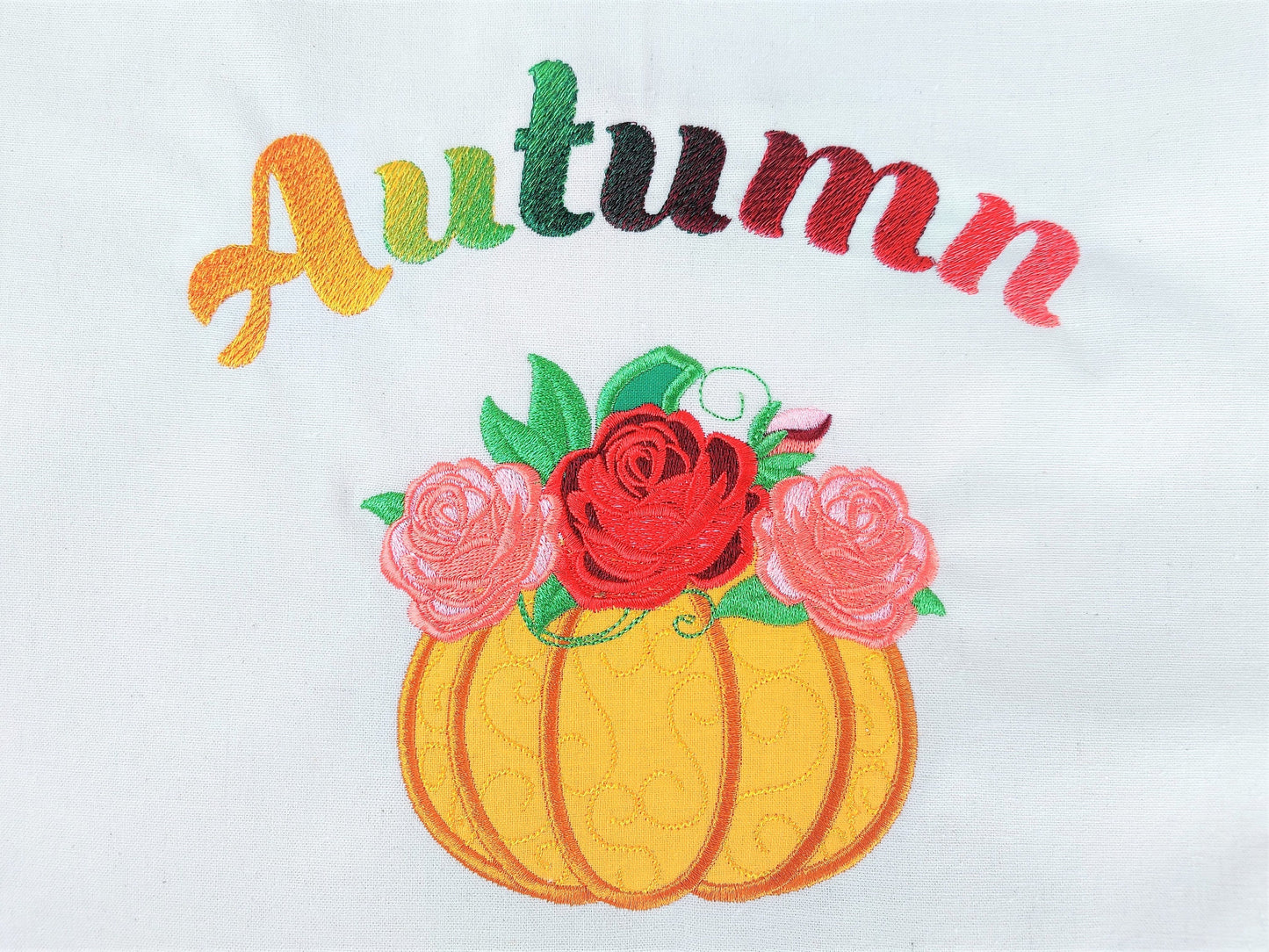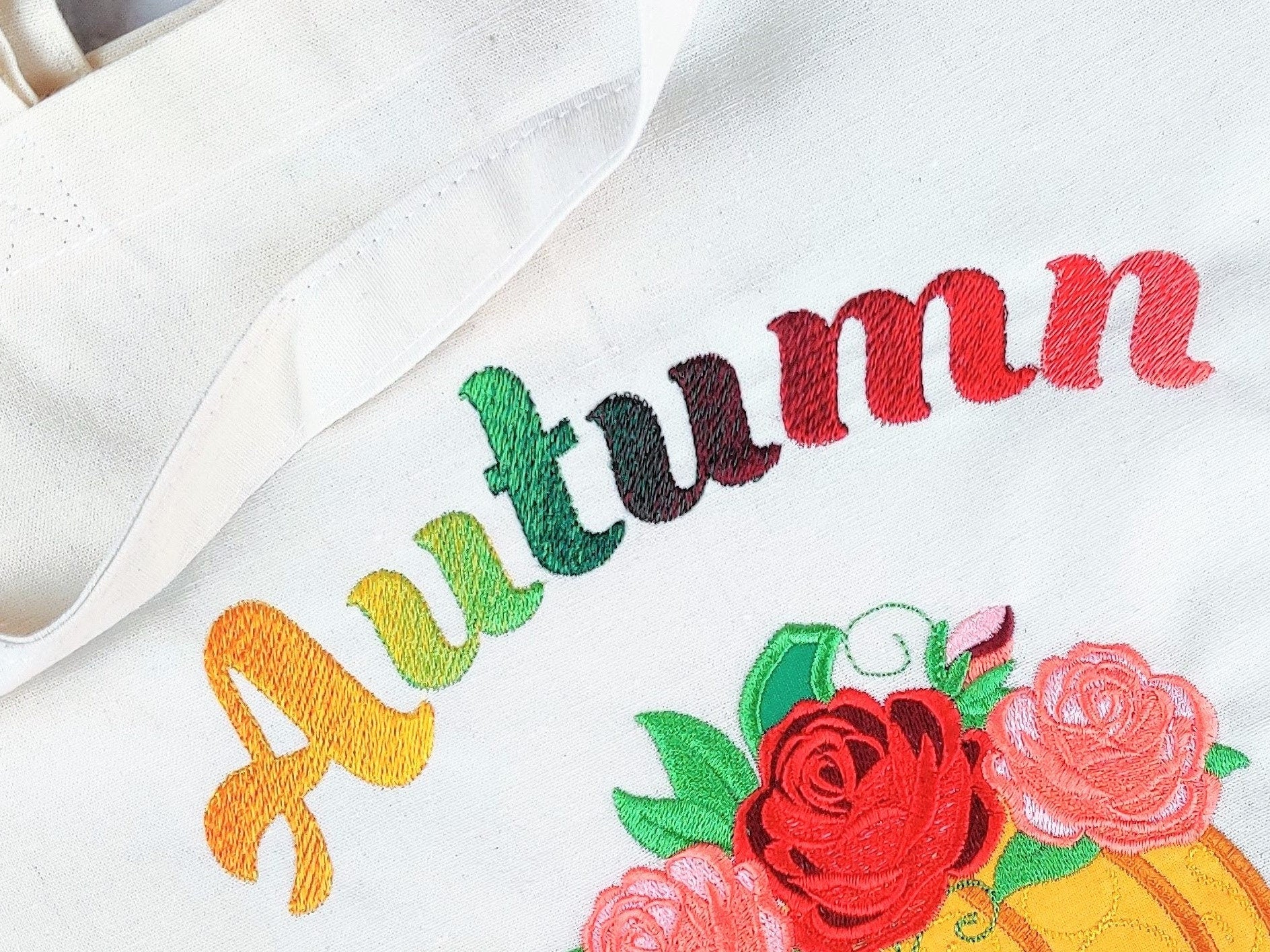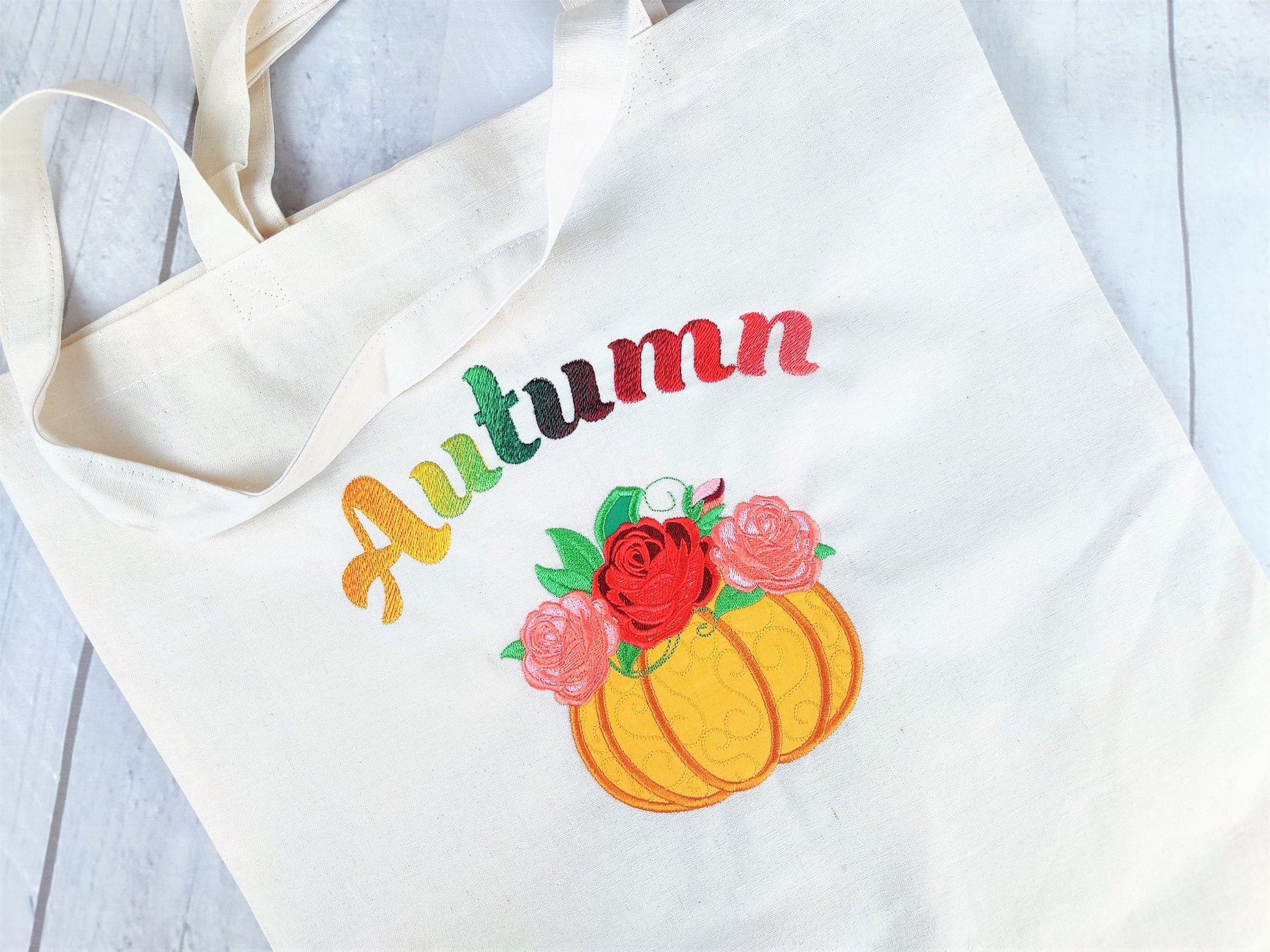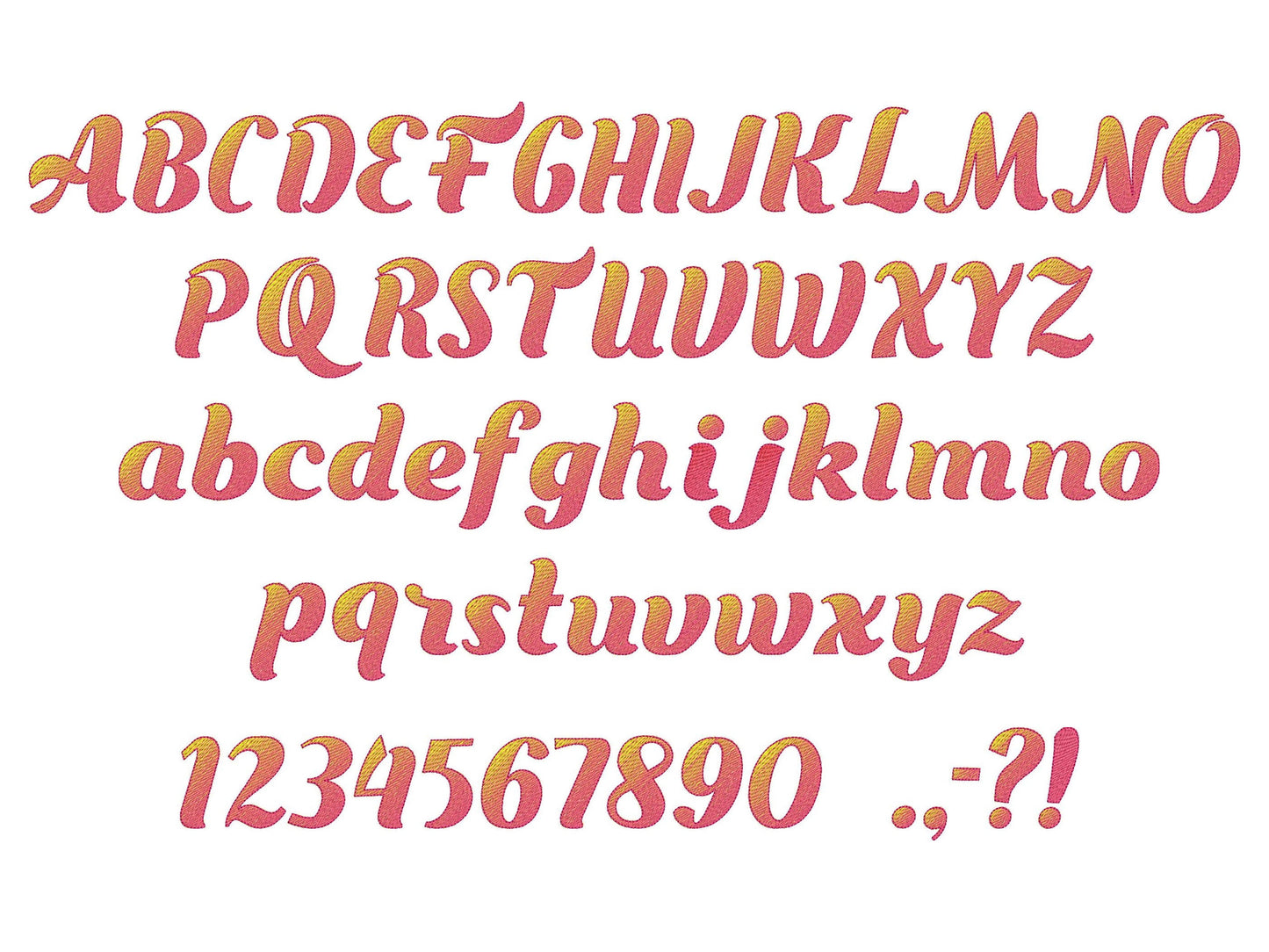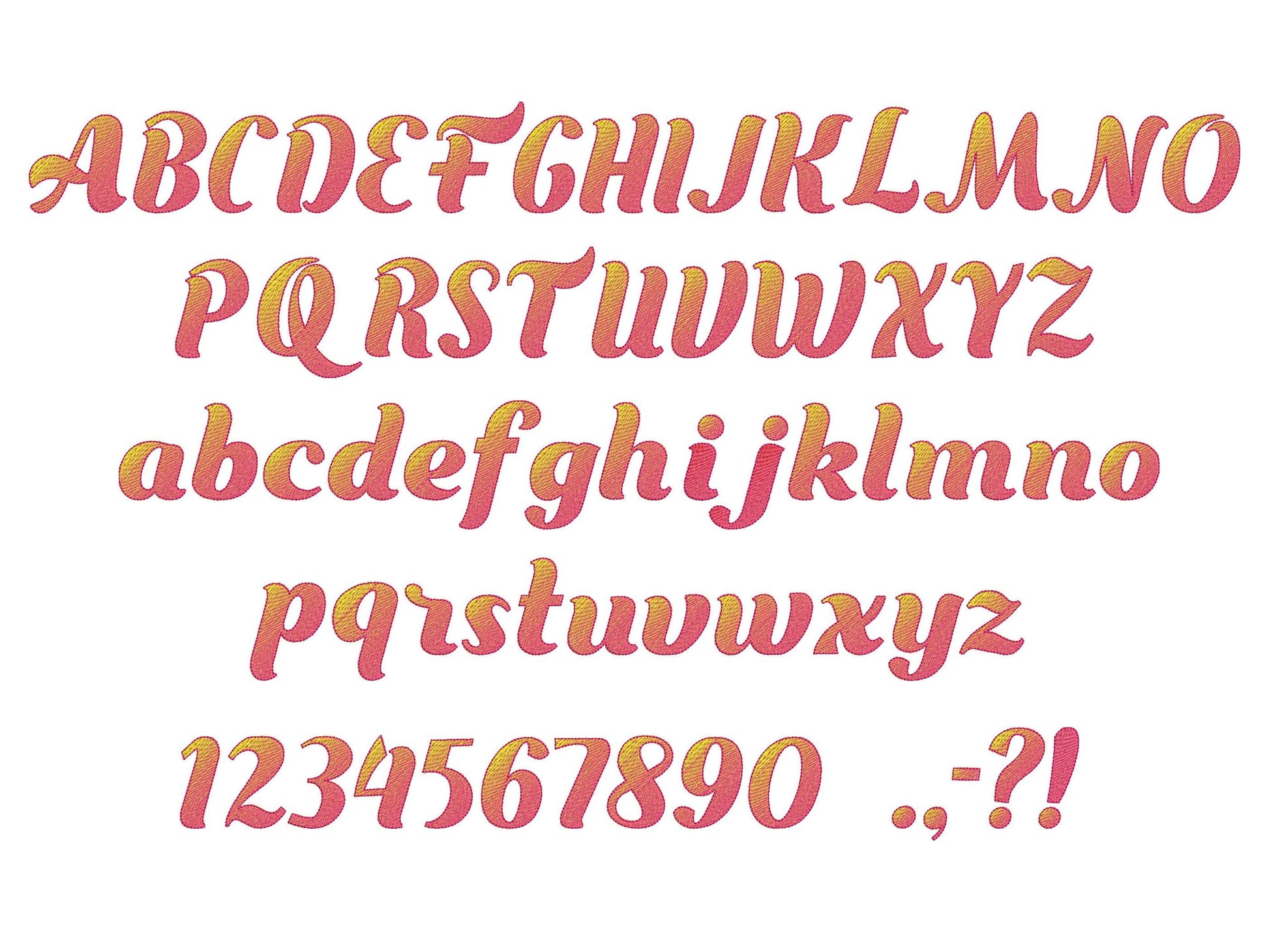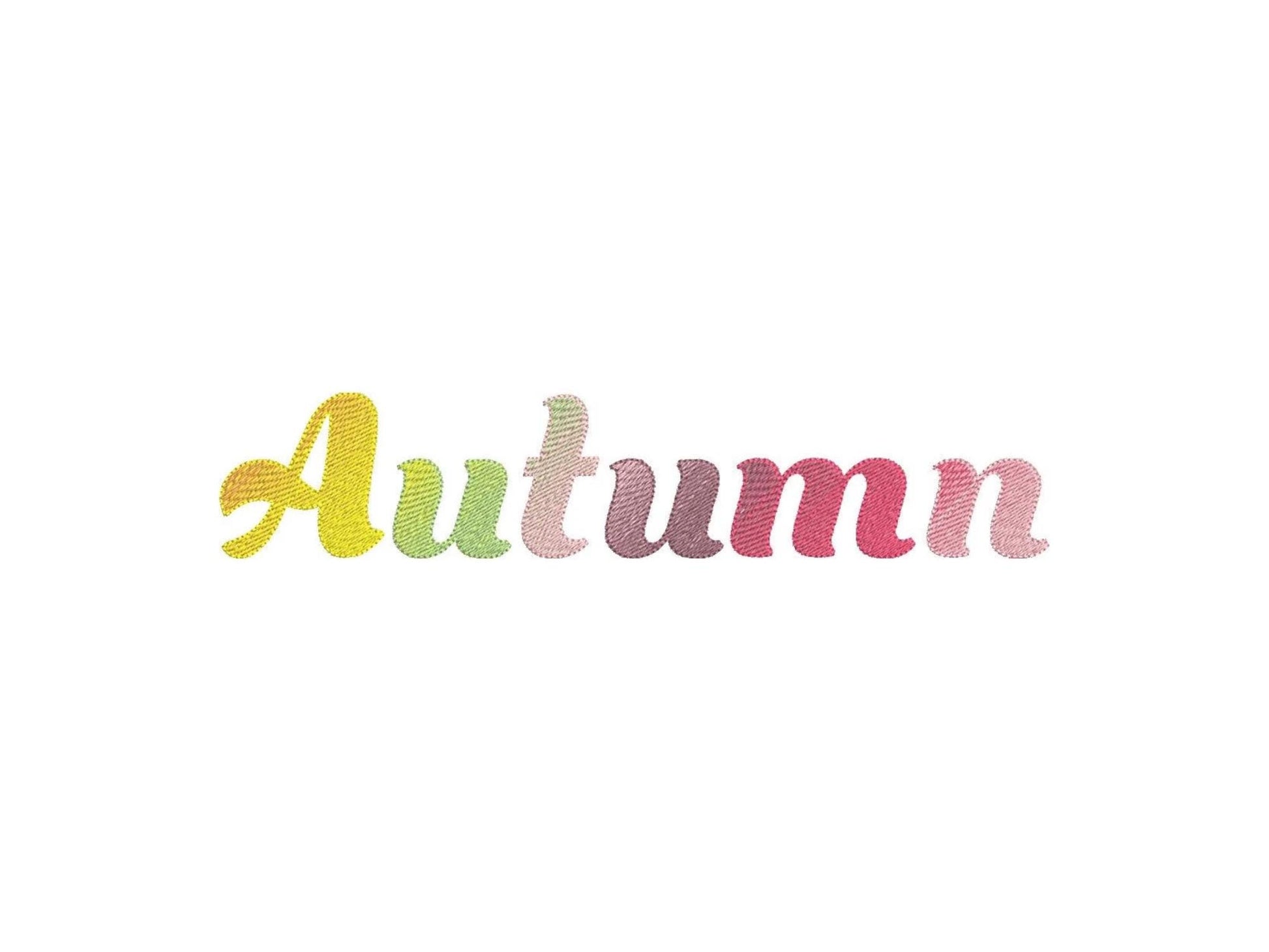
Or click to open the linkAn iridescent script stitched with two ordinary thread colors that blend into a rainbow gradient. No special thread needed. Lovely for names and monograms.
One side of each letter is stitched mostly in one color and the other side in the second, so the letter shimmers all by itself. Uppercase and lowercase letters, numbers and punctuation in six sizes: 1, 1.5, 2, 2.5, 3 and 4 inches.